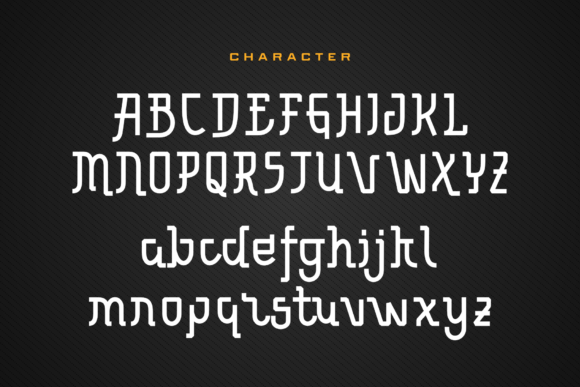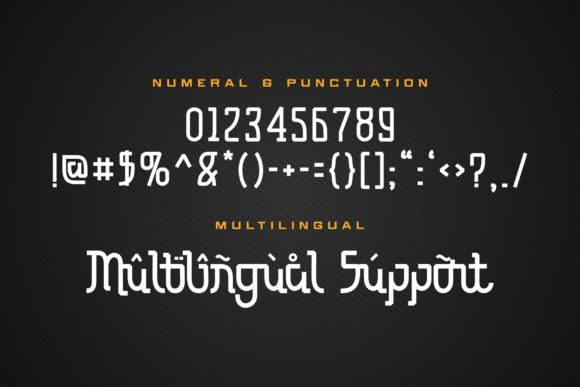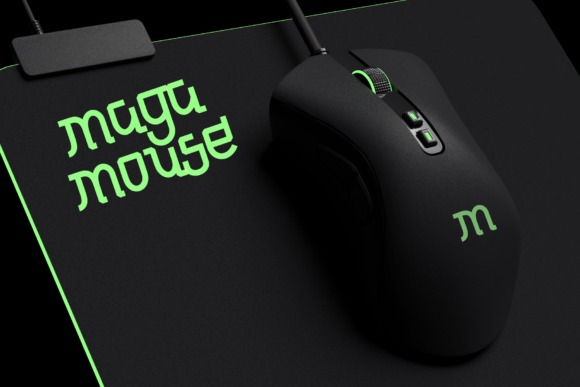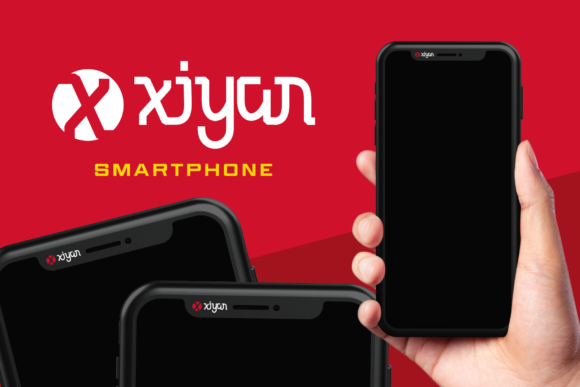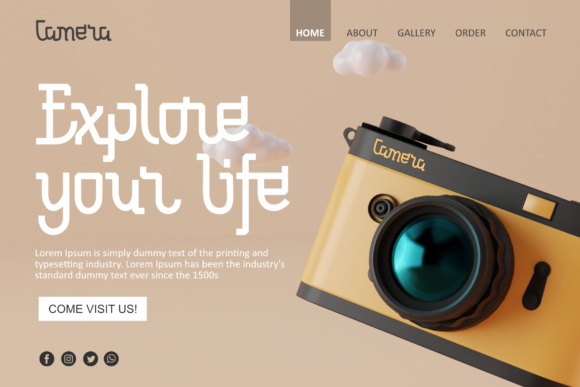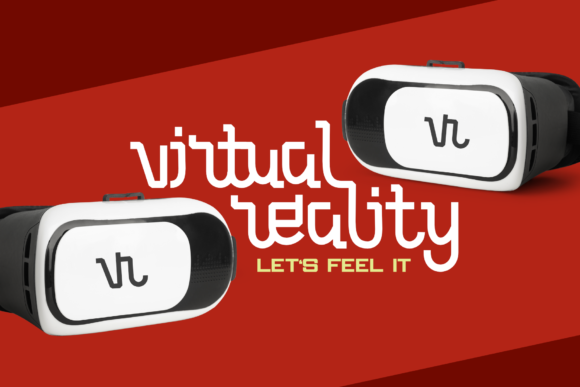
Bogie Bogie Font: Add a Touch of Whimsy to Your Designs
Are you tired of using the same old fonts in your designs? Look no further than the Bogie Bogie font, a cool and whimsical display font that’s perfect for adding a touch of personality to your projects. In this article, we’ll take a closer look at the Bogie Bogie font, its features, and how you can use it to take your designs to the next level.
What is Bogie Bogie Font?
Bogie Bogie is a unique and eye-catching display font that’s designed to make your designs stand out. With its playful and whimsical look, this font is perfect for use on food menus, posters, flyers, and prints. Its distinctive style is sure to grab attention and leave a lasting impression on your audience.
Key Features of Bogie Bogie Font
So, what makes Bogie Bogie font so special? Here are some of its key features:
- Whimsical design: Bogie Bogie font has a playful and whimsical look that’s perfect for designs that need a touch of personality.
- Display font: This font is designed specifically for display use, making it perfect for headlines, titles, and other prominent text elements.
- Easy to read: Despite its playful design, Bogie Bogie font is easy to read, even at smaller sizes.
- Versatile: This font can be used for a wide range of design projects, from food menus to posters and flyers.
How to Use Bogie Bogie Font in Your Designs
Now that we’ve covered the features of Bogie Bogie font, let’s talk about how you can use it in your designs. Here are some ideas to get you started:
- Food menus: Add a touch of whimsy to your food menu with Bogie Bogie font. It’s perfect for highlighting special dishes or promotions.
- Posters and flyers: Use Bogie Bogie font to create eye-catching posters and flyers that grab attention.
- Prints: This font is also great for use on prints, such as business cards, brochures, and other marketing materials.
- Social media graphics: Use Bogie Bogie font to create engaging social media graphics that stand out from the crowd.
Tips for Getting the Most Out of Bogie Bogie Font
To get the most out of Bogie Bogie font, here are some tips to keep in mind:
- Use it sparingly: While Bogie Bogie font is eye-catching, it’s best used sparingly. Use it for headlines or titles, and pair it with a simpler font for body text.
- Experiment with colors: Bogie Bogie font looks great in a variety of colors. Experiment with different colors to find the one that works best for your design.
- Pair it with other fonts: Don’t be afraid to pair Bogie Bogie font with other fonts to create a unique look. Try pairing it with a sans-serif font for a modern look or a serif font for a more traditional look.
In conclusion, Bogie Bogie font is a cool and whimsical display font that’s perfect for adding a touch of personality to your designs. With its playful design, ease of use, and versatility, this font is sure to become a favorite in your design arsenal. So why not give it a try and see the endless possibilities for yourself?
- Bogie Bogie font is a cool and whimsical display font that’s perfect for adding a touch of personality to your designs.